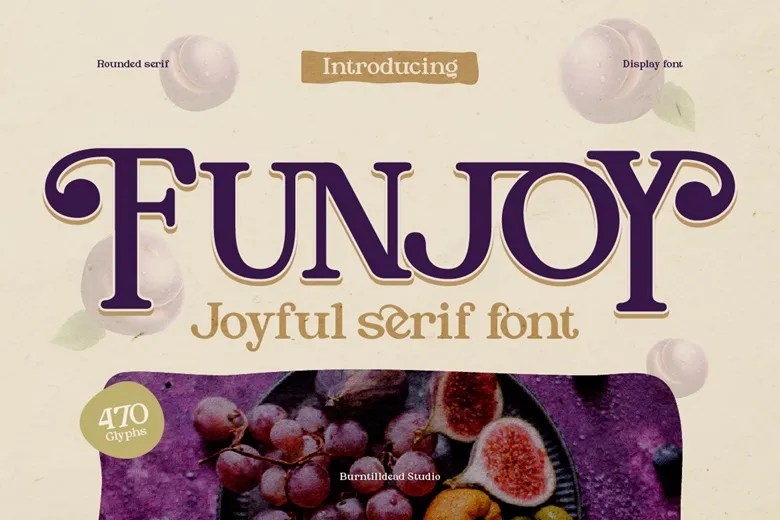
Funjoy Font
Funjoy is a fresh and vibrant rounded serif font that brings a joyful and playful character to any design. Inspired by the nostalgic charm of the ‘90s yet modernized for today’s creative needs, Funjoy is perfect for projects that require a lighthearted and fun atmosphere. With alternates, ligatures, and multilingual support, this font offers versatility while maintaining its unique personality.
Ideal for a variety of design applications, Funjoy works beautifully in logo design, packaging, restaurant menus, headlines, social media posts, and branding projects that need a cute and welcoming look. Whether for business or creative purposes, this font adds a touch of warmth and personality to any project.